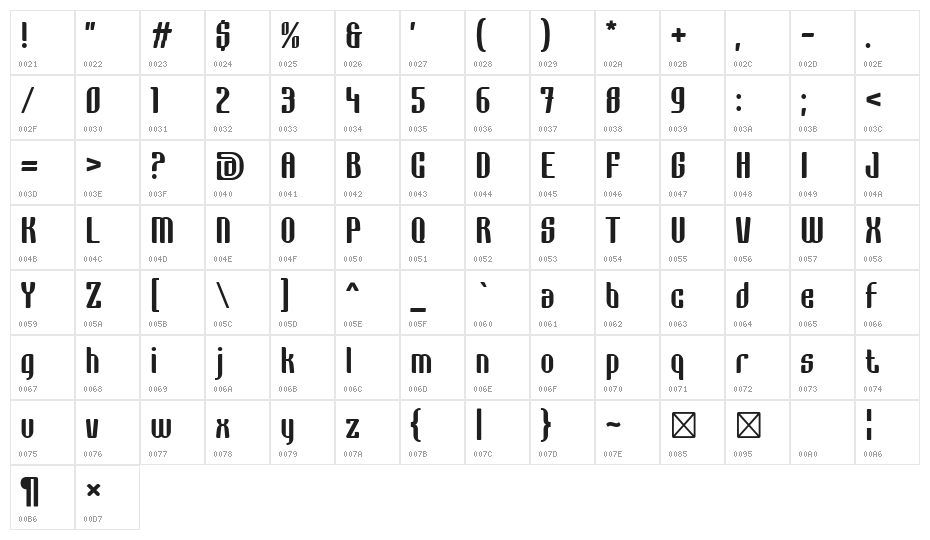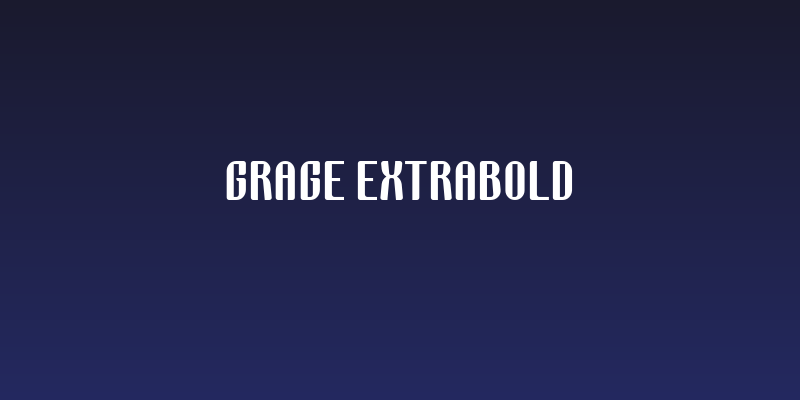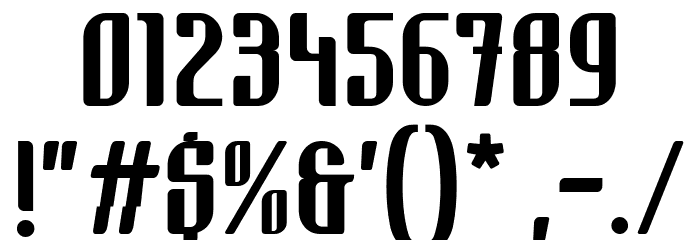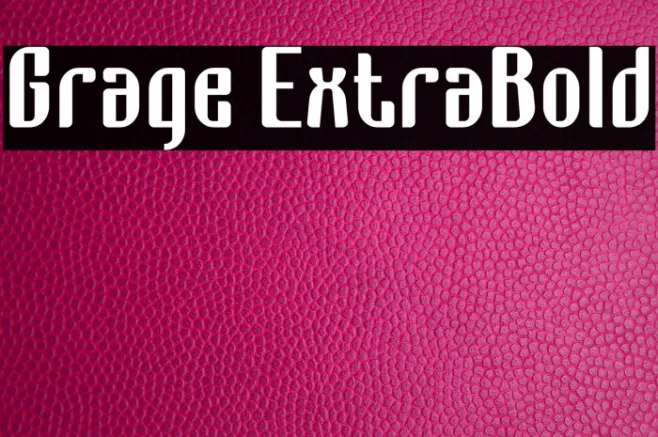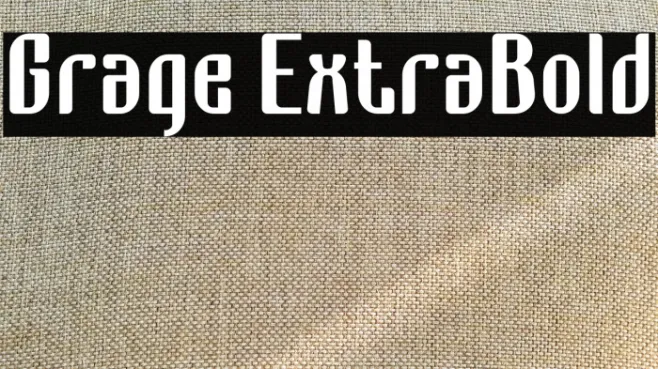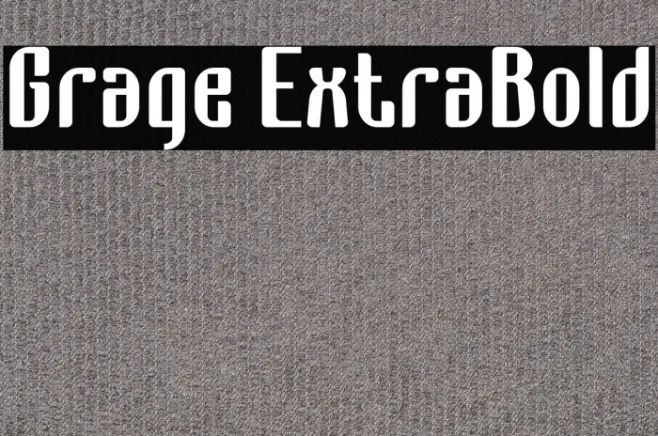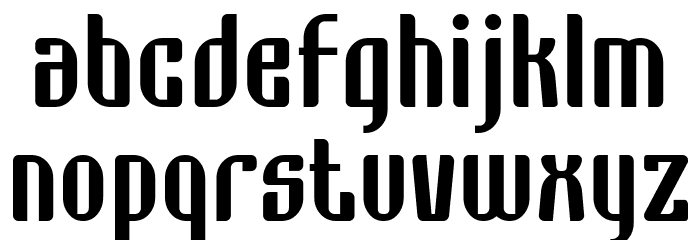
Grage ExtraBold Font
Grage ExtraBold Description
This font features a bold and impactful design with a modern flair. The characters are uniformly thick, creating a strong visual presence. The rounded edges of the letters add a touch of softness to the otherwise robust structure. The uppercase and lowercase letters maintain a consistent style, with a slight variation in height and width that adds interest without sacrificing readability. The numerals are clear and distinct, matching the overall boldness of the alphabet. Special characters are well-integrated, ensuring versatility in various design contexts.